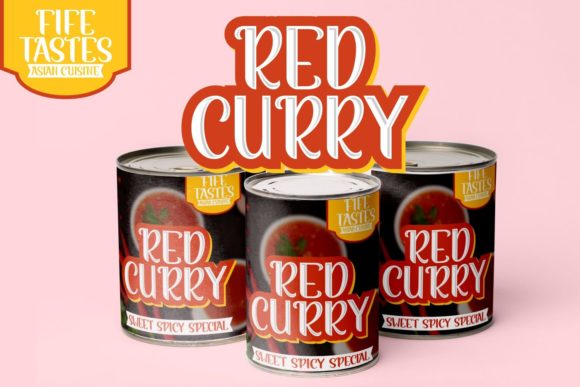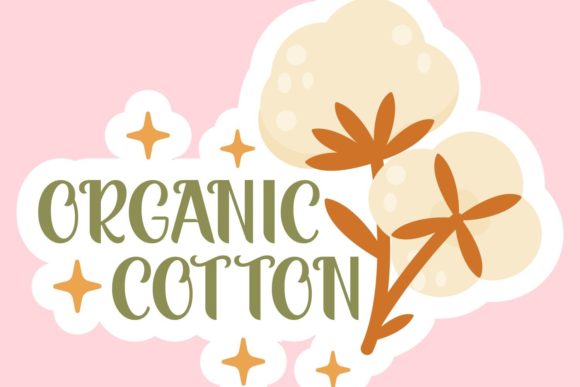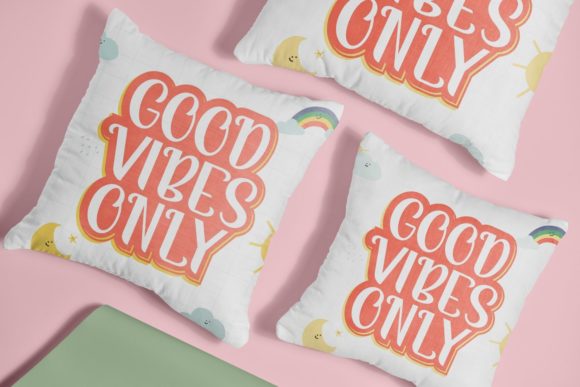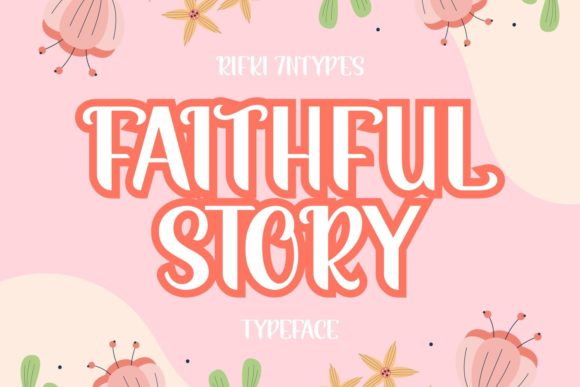
Introducing Faithful Story Font: The Perfect Blend of Confidence, Authenticity, and Charm
In the world of typography, fonts play a crucial role in conveying messages, expressing emotions, and creating lasting impressions. For designers, crafters, and marketers, finding the right font can be a daunting task. However, if you’re looking for a font that exudes confidence, authenticity, and charm, look no further than Faithful Story Font. In this article, we’ll delve into the features, benefits, and uses of Faithful Story Font, and explore why it’s an excellent addition to your typography arsenal.
What is Faithful Story Font?
Faithful Story Font is a display font that embodies a unique blend of assertiveness, cheerfulness, and coolness. Its distinctive style makes it an ideal choice for delivering messages with confidence, authenticity, and charm. Whether you’re working on a branding project, creating social media graphics, or designing marketing materials, Faithful Story Font is sure to make a lasting impression.
Key Features of Faithful Story Font
- Assertive yet Cheery: Faithful Story Font strikes the perfect balance between being bold and cheerful. Its assertive style ensures that your message is delivered with confidence, while its cheerful tone adds a touch of warmth and friendliness.
- Cool and Collected: This font exudes a sense of coolness, making it perfect for designs that require a modern and trendy feel. Its collected style ensures that your text is easy to read and understand.
- Display Font: Faithful Story Font is a display font, designed to make a statement. Its large size and bold style make it perfect for headlines, titles, and other display text.
- Versatile: This font is incredibly versatile, making it suitable for a wide range of design projects, from branding and advertising to social media graphics and packaging.
Benefits of Using Faithful Story Font
So, why choose Faithful Story Font for your design projects? Here are just a few benefits:
- Grabs Attention: Faithful Story Font is designed to grab attention. Its bold and cheerful style ensures that your message is noticed, even in a crowded design landscape.
- Conveys Confidence: This font exudes confidence, making it perfect for designs that require a sense of authority and trustworthiness.
- Adds Charm: Faithful Story Font has a charming quality that adds a touch of personality to your designs. Its unique style ensures that your message is delivered with warmth and friendliness.
- Easy to Read: Despite its bold style, Faithful Story Font is easy to read, making it perfect for designs that require a clear and concise message.
Uses of Faithful Story Font
Faithful Story Font is incredibly versatile, making it suitable for a wide range of design projects. Here are just a few examples:
- Branding: Use Faithful Story Font to create bold and confident brand identities that grab attention and convey authority.
- Social Media Graphics: This font is perfect for creating social media graphics that stand out in crowded feeds.
- Marketing Materials: Faithful Story Font is ideal for marketing materials, such as brochures, flyers, and posters, that require a clear and concise message.
- Packaging: Use this font to create eye-catching packaging that stands out on store shelves.
In conclusion, Faithful Story Font is an exceptional display font that offers a unique blend of confidence, authenticity, and charm. Its assertive yet cheerful style makes it perfect for delivering messages with authority and warmth. With its versatility, ease of use, and range of applications, Faithful Story Font is an excellent addition to any designer’s typography arsenal. Whether you’re working on a branding project, creating social media graphics, or designing marketing materials, this font is sure to make a lasting impression.